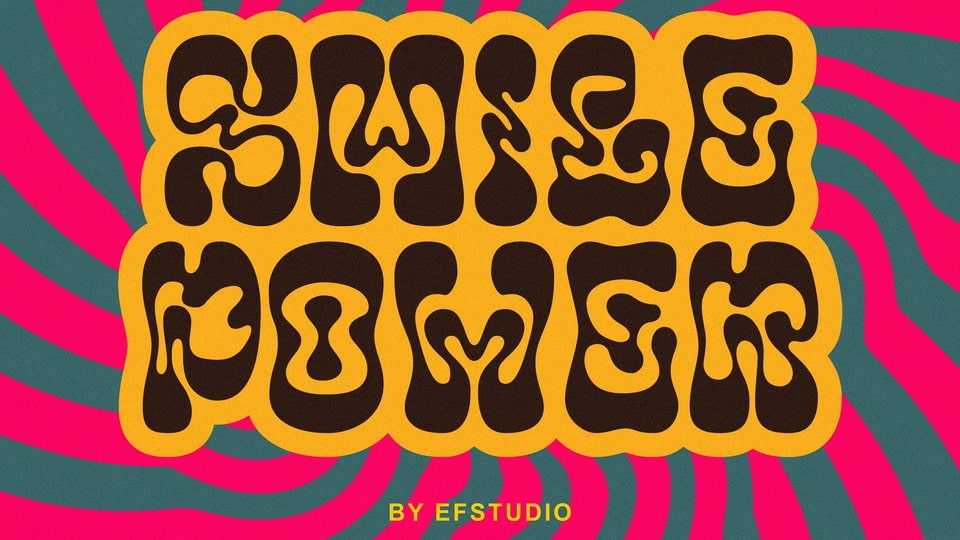
Download Smile Power font, a playful display typeface inspired by psychedelic theme. Smile Power will fit on headline, logotype, tittle, poster, and so on. It will be nice to mix and match with simple sans serif.
Designer: Ef Studio